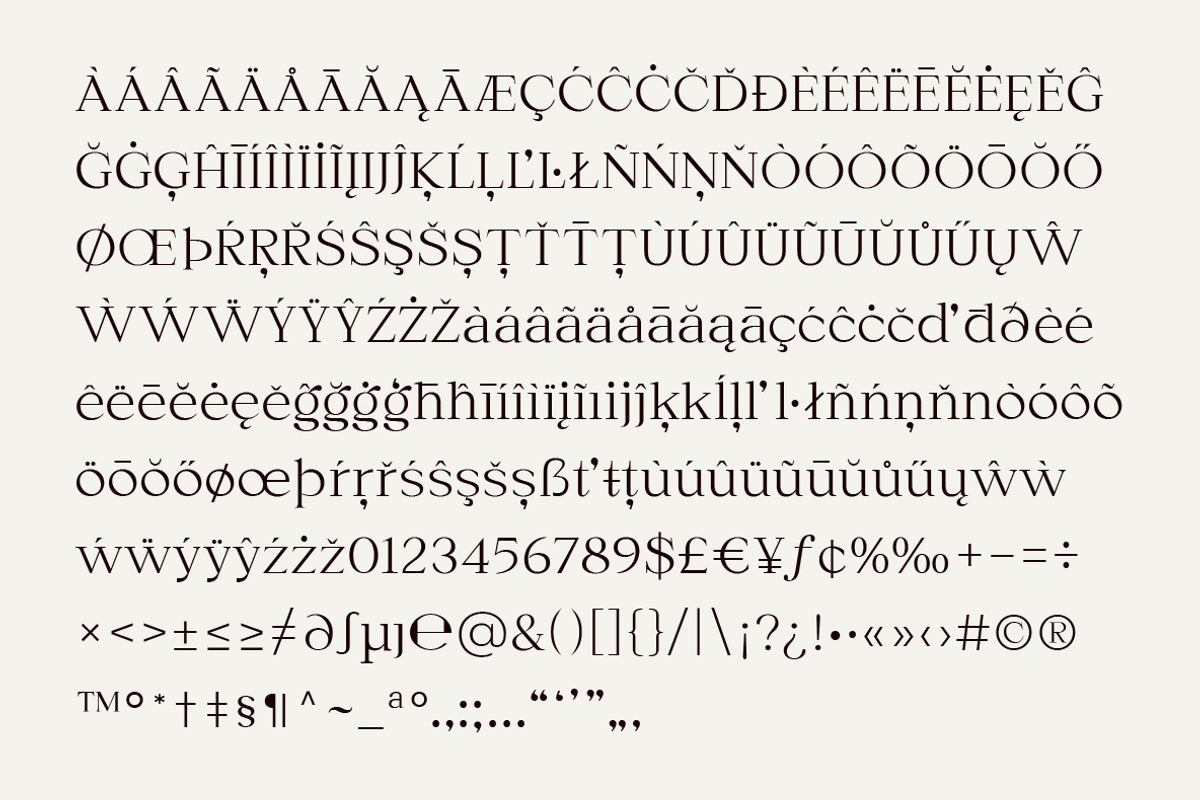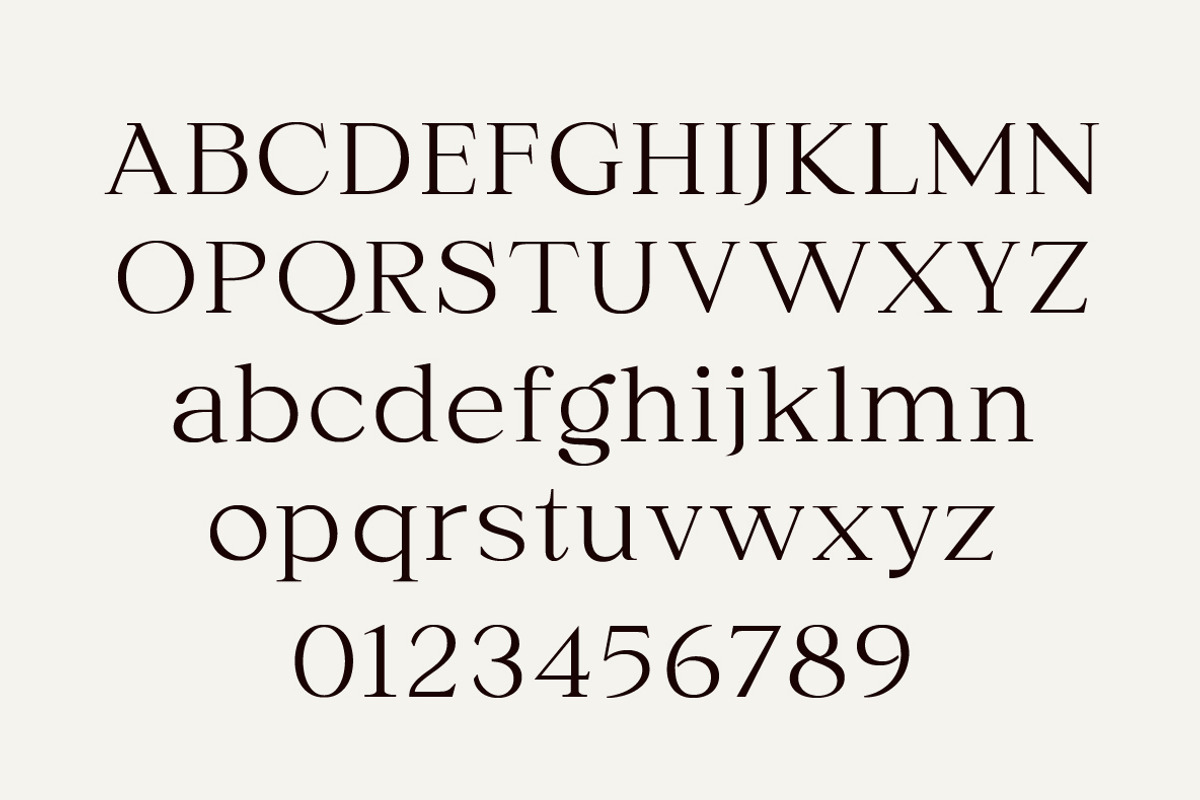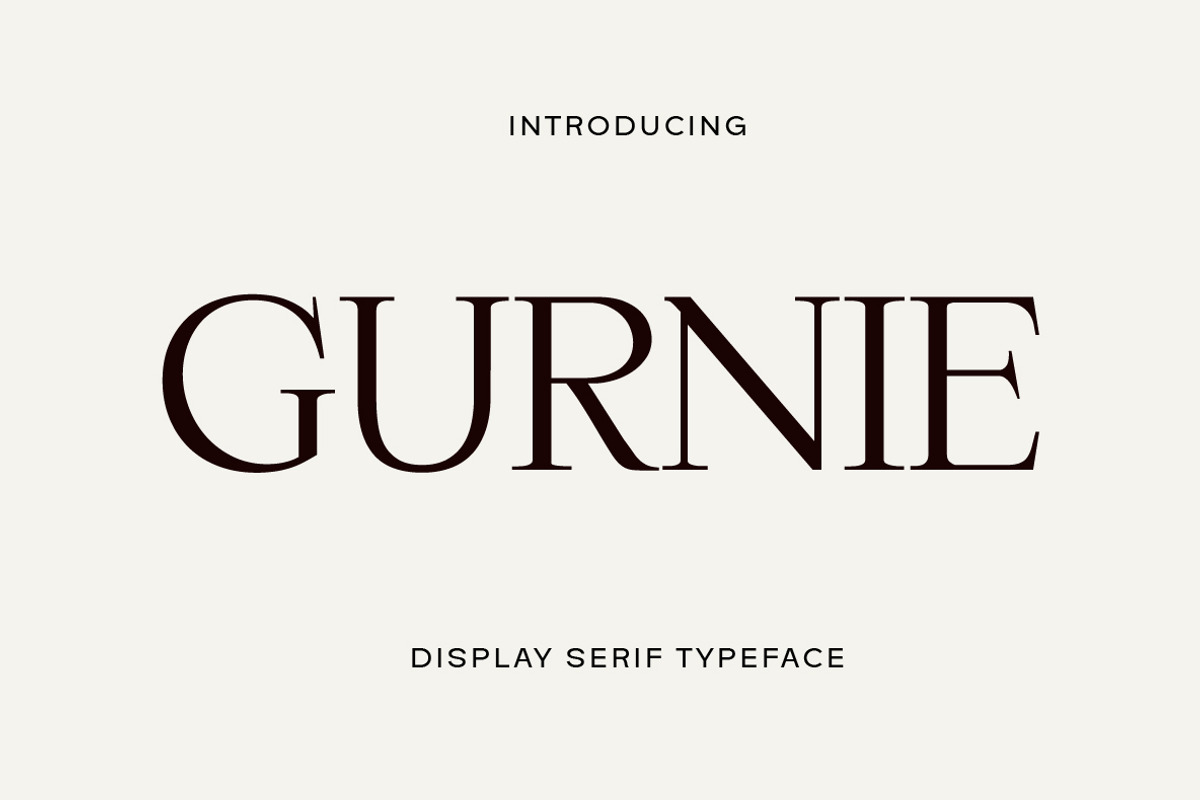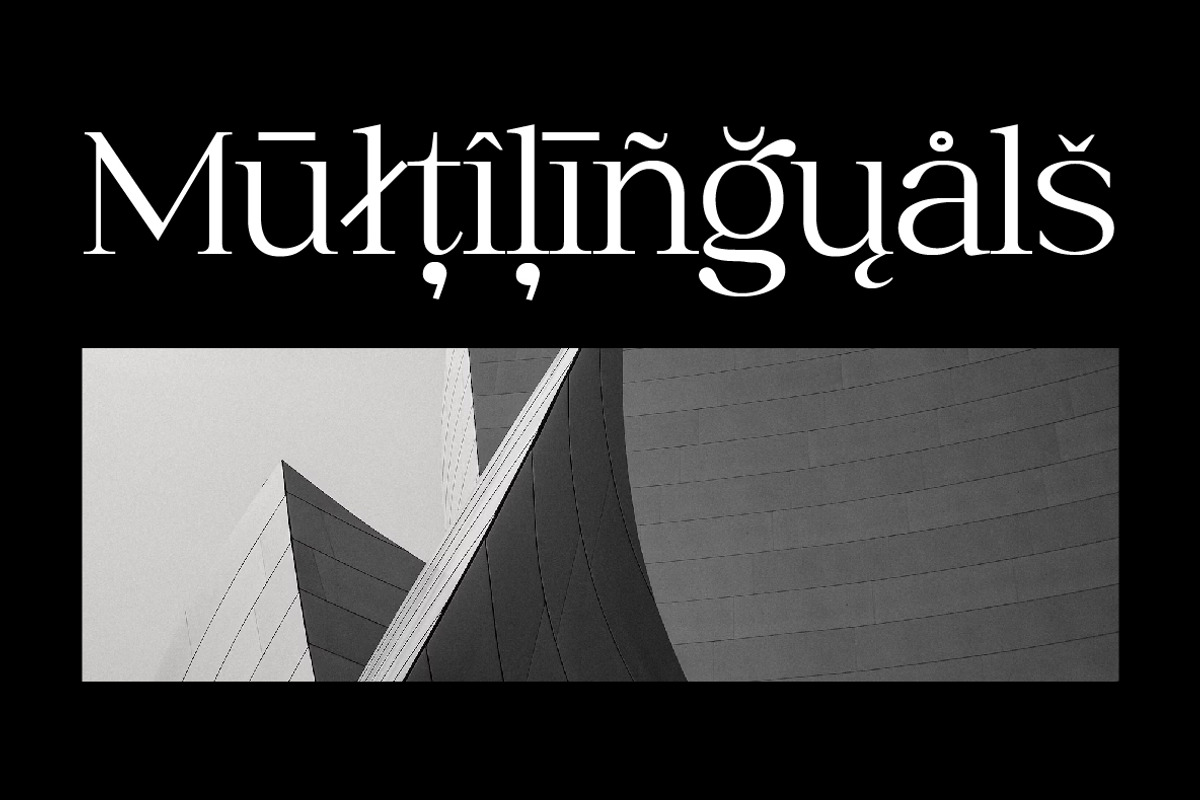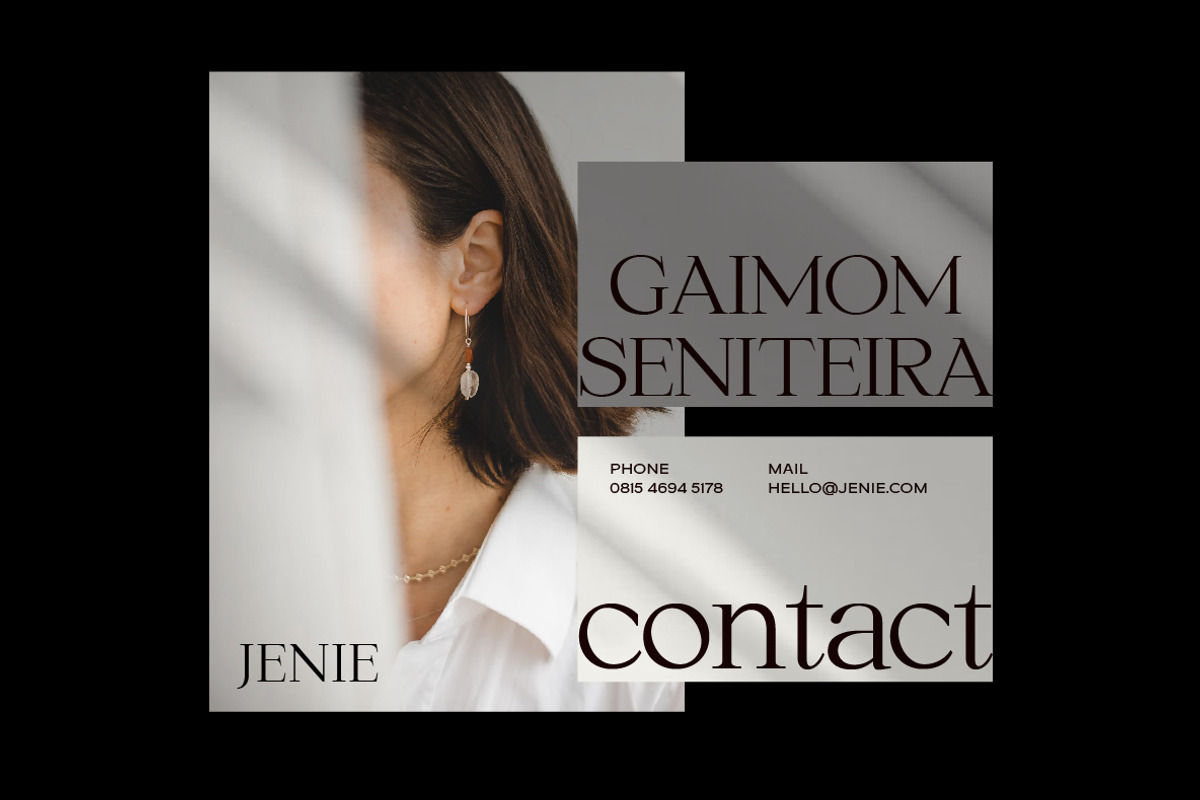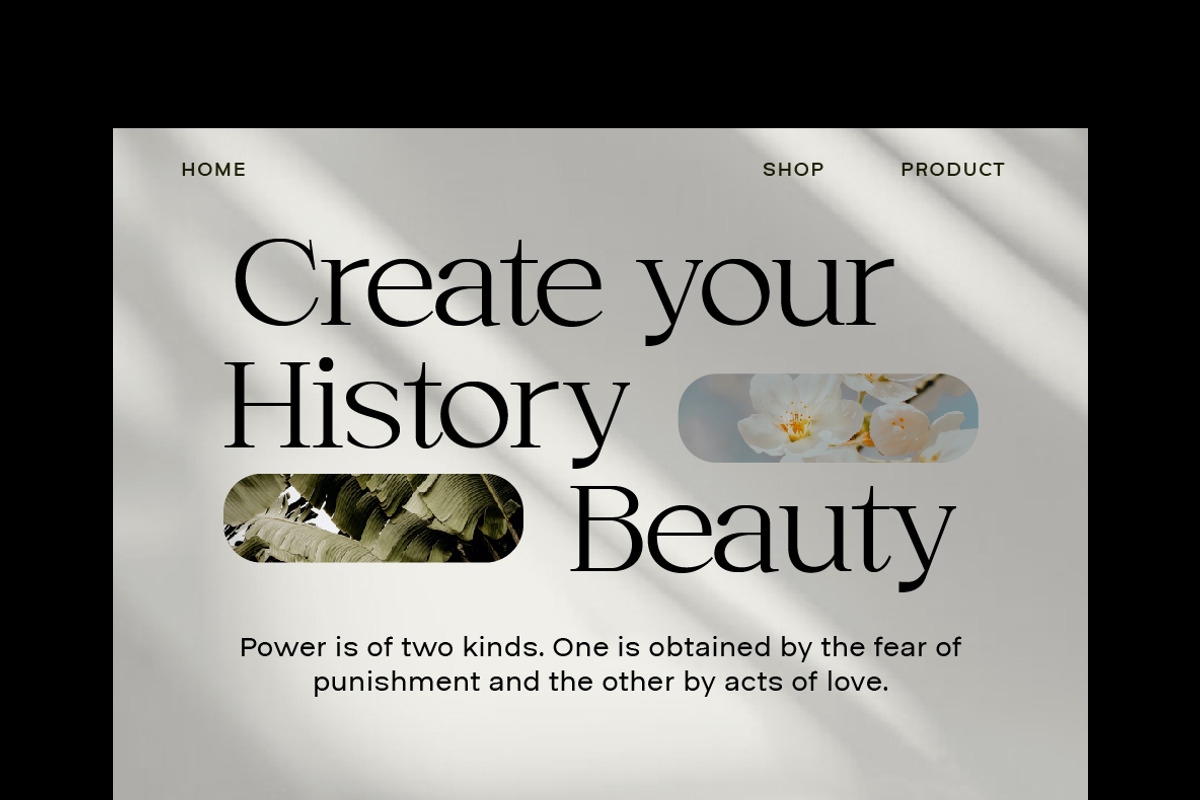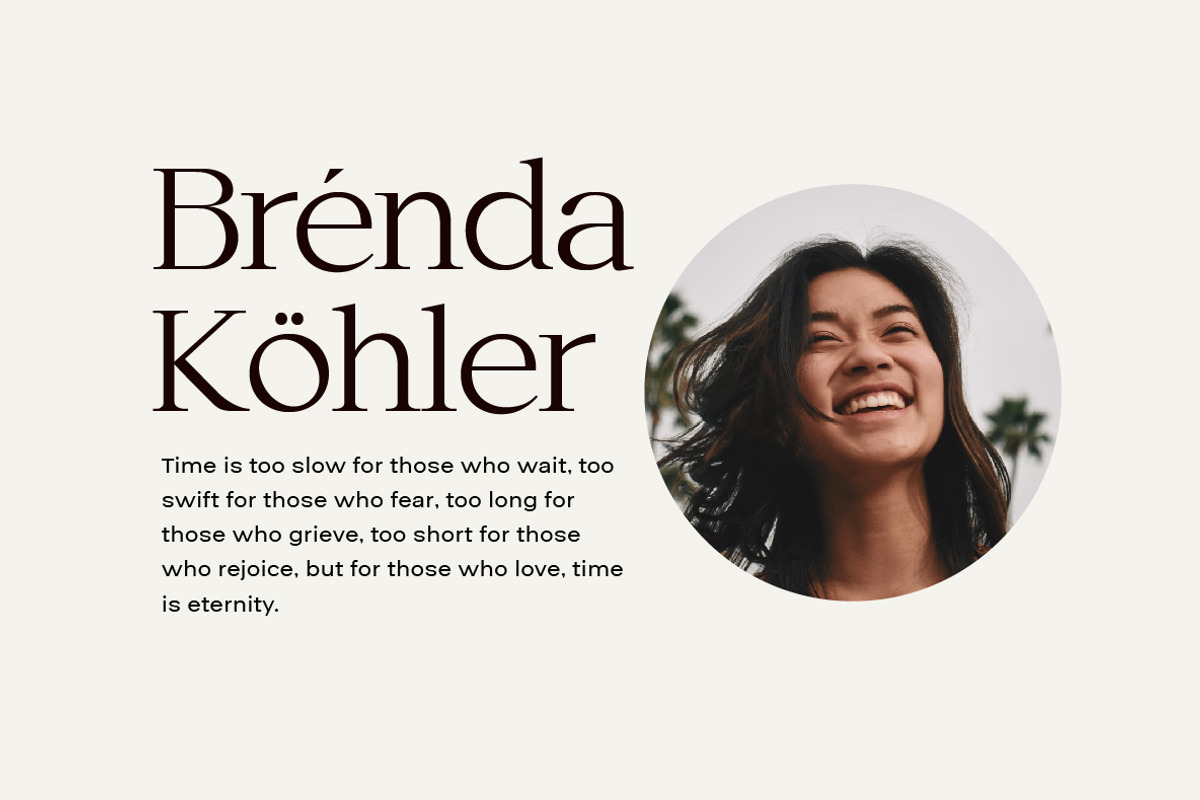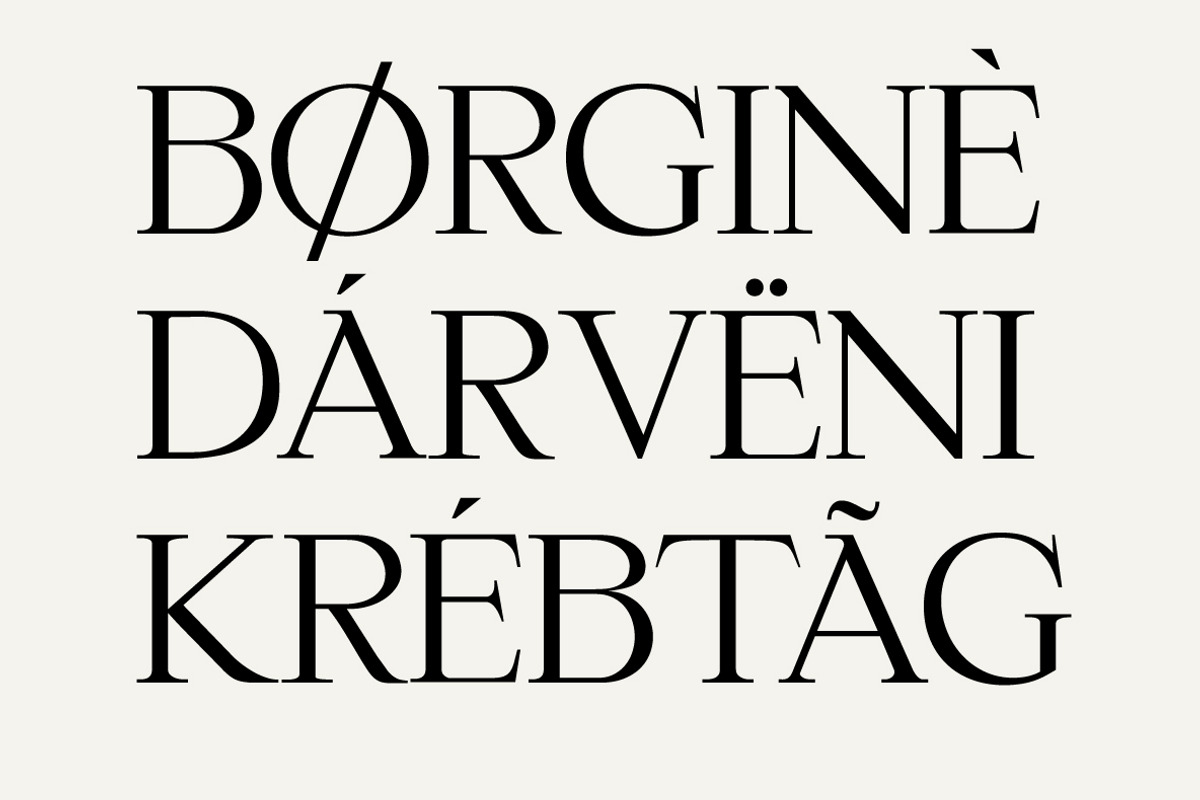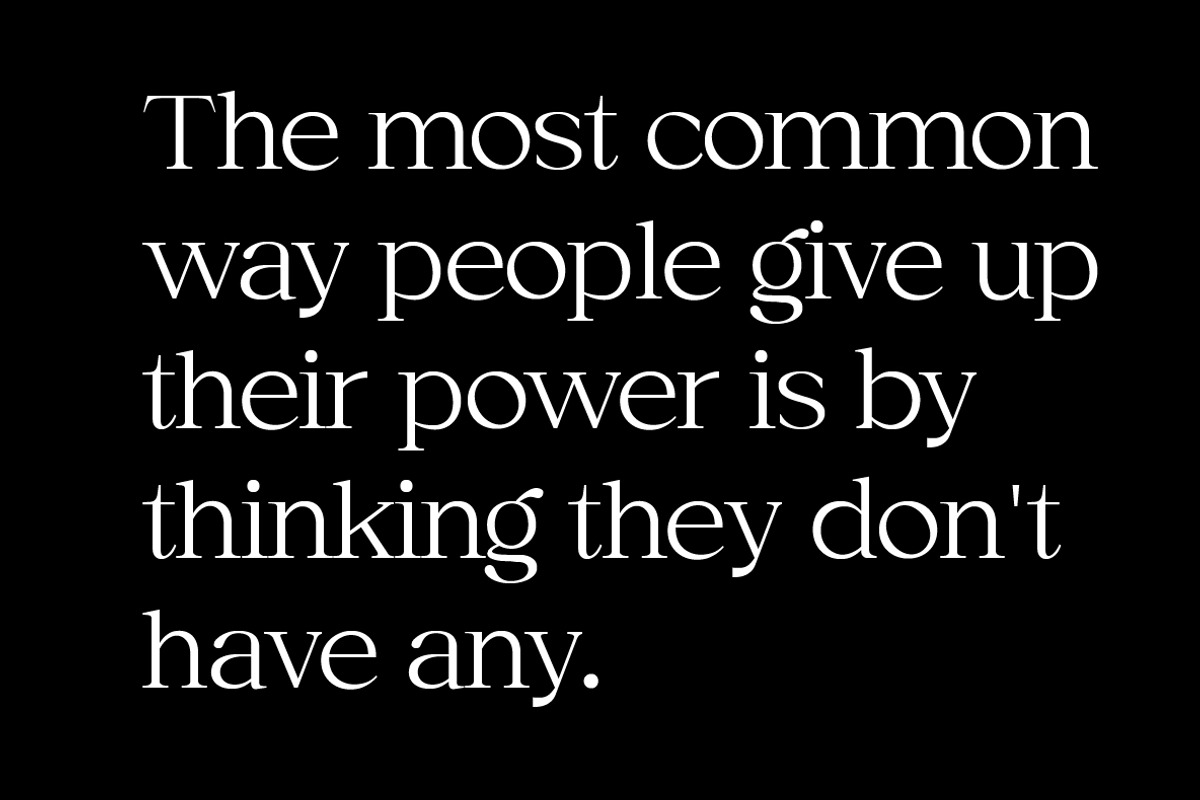
Gurnie Serif Fonts
Gurnie serif fonts classic is a type of font that emphasizes the classic impression of each letter. This font has a very interesting uniqueness, because of its artistic and elegant shape.
Gurnie serif fonts classic is a classic font with the characteristics of a proportional and elegant serif. Great for calling headlines, newspapers, magazines and other design projects. Gives a modern and classic impression on each letter.